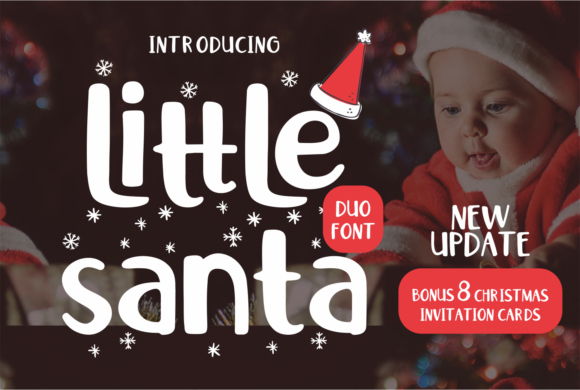
Introducing Little Santa Font, a creation by mukhstd that has captivated the hearts of designers and typographers worldwide. Immerse yourself in the enchanting world of this display font, a true masterpiece inspired by the warmth and charm of handwritten notes.
With its playful strokes and irresistible charm, Little Santa Font is not just a font; it's an invitation to let your creativity dance on the page. Its casual, carefree nature lends itself perfectly to Instagram posts, adding a personal touch to your social media presence. Unleash your inner artist and craft eye-catching designs that emanate a sense of warmth and friendliness.
But Little Santa Font's versatility extends far beyond the digital realm. Let your imagination soar as you explore its potential in DIY projects, where its handwritten feel adds a touch of whimsy and uniqueness. Whether you're personalizing cards, creating custom gift tags, or designing heartwarming posters, Little Santa Font is your perfect creative companion.
With Little Santa Font, you'll discover a world of possibilities where every letter carries a story and every word is a brushstroke of art. Its ability to transform ordinary text into extraordinary expressions makes it an ideal choice for those who seek fonts for Instagram or calligraphy scripts for their artistic endeavors.
So, embrace the magic of Little Santa Font, let your creativity flourish, and embark on a typographic journey like no other. Its friendly charm and artistic flair will leave an indelible mark on your designs, captivating your audience with its undeniable allure. Take the first step towards creating stunning visuals that resonate with warmth, authenticity, and timeless beauty. Download Little Santa Font today and let your imagination run wild!